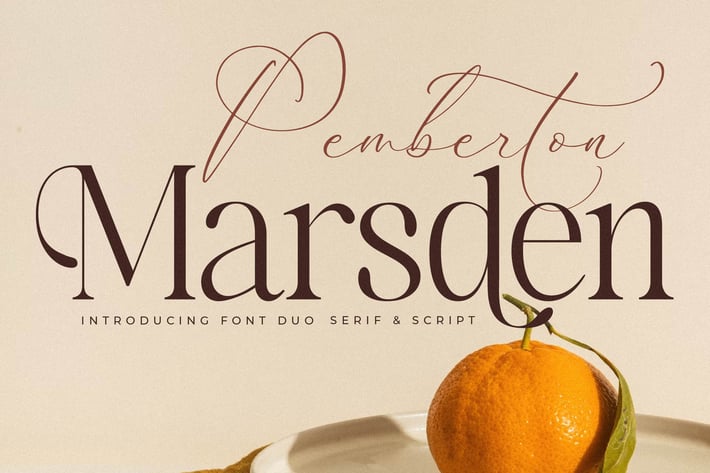
Pemberton Marsden Font Duo
Pemberton Marsden is a refined font duo featuring a classic serif paired with an elegant script. Together, they create a sophisticated contrast—perfect for premium branding, editorial layouts, and elevated packaging designs that require a blend of strength and delicate charm.
Timeless serif with clean structure and elegant proportions
Flowing script companion with graceful, decorative curves
Beautiful contrast when paired for logos, titles, and branding
Ideal for both high-end print and polished digital layouts
Luxury brand identity systems
Editorial spreads & magazine covers
Packaging & product labels
Wedding stationery & elegant invitations
Social media graphics & refined visual campaigns
Boutique, fashion, and lifestyle branding
A classic serif and elegant script—perfect harmony for premium design.